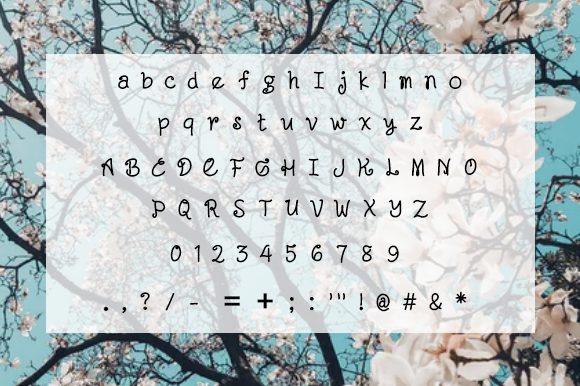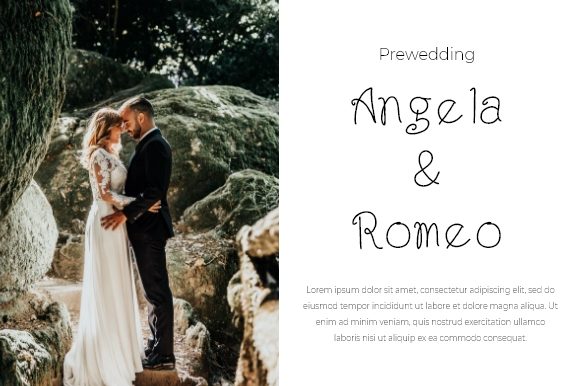
Introduction to Ketika Font
Ketika is a casual and fun handwritten font.
Clean and a little bit quirky, this font is the perfect fit for all of your logos, branding, social media, and crafty DIY projects .
Why Choose Ketika Font?
Ketika Font offers exceptional quality and versatility, making it a valuable addition to your design toolkit. Whether you’re creating for personal projects or commercial use, Ketika Font delivers professional results.